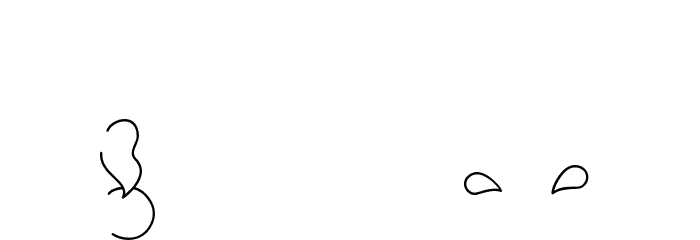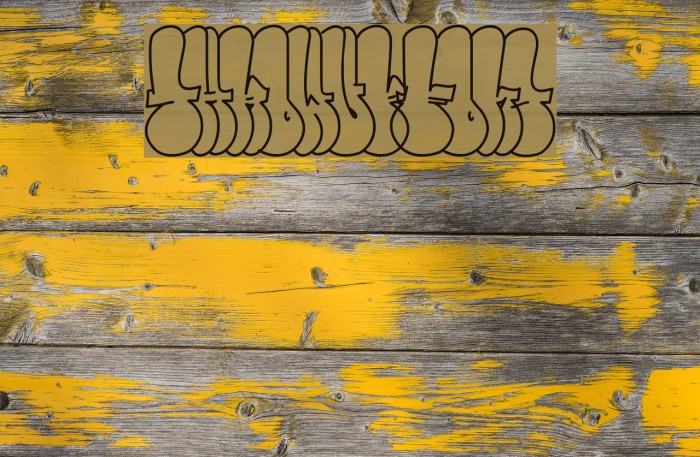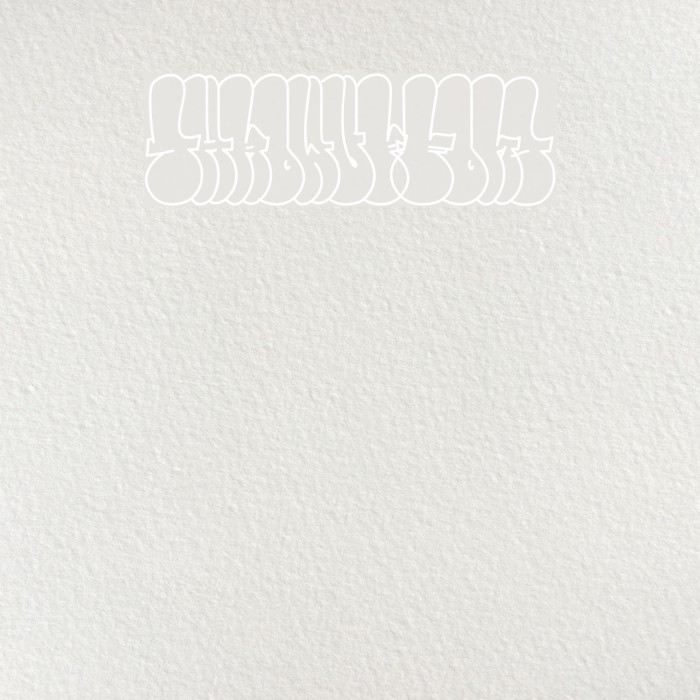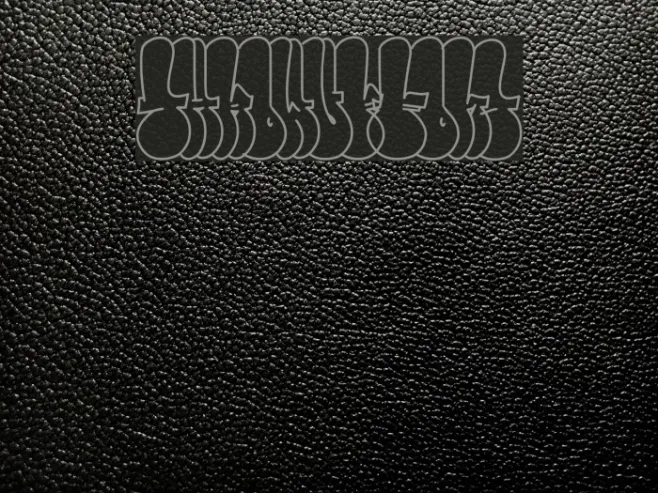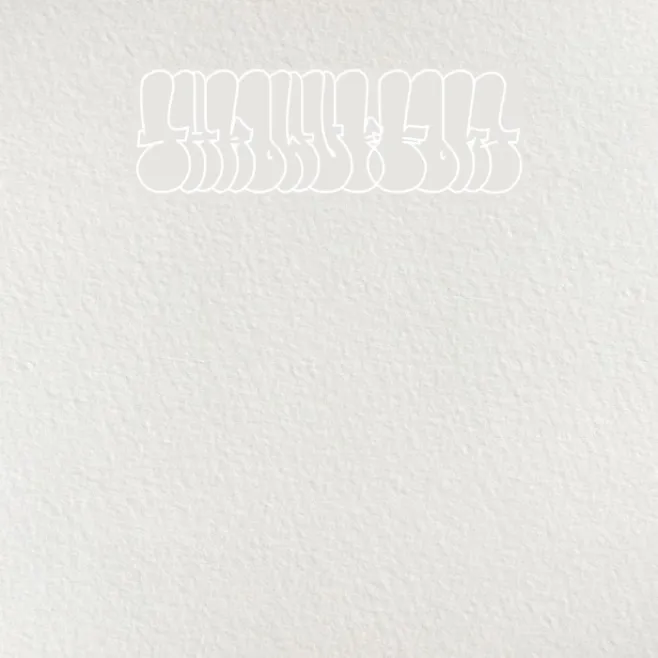
Throw-up Font Font
This font features a bold, graffiti-inspired style with exaggerated, rounded forms and a playful, urban aesthetic. The letters are characterized by their bulbous shapes and thick outlines, reminiscent of street art throw-ups. Each character maintains a consistent height and width, creating a uniform appearance across the alphabet. The font's design is highly decorative, with a focus on visual impact rather than readability, making it ideal for creative and expressive projects. The unique style captures the essence of street culture, offering a dynamic and energetic vibe.
A bold, graffiti-inspired font with rounded, bulbous shapes and thick outlines.
- Proposed Projects: Ideal for street art projects, urban-themed designs, posters, and creative branding.
- Overall Style: Urban, Graffiti, Playful
- Use Case: Logos, Posters, Creative Branding